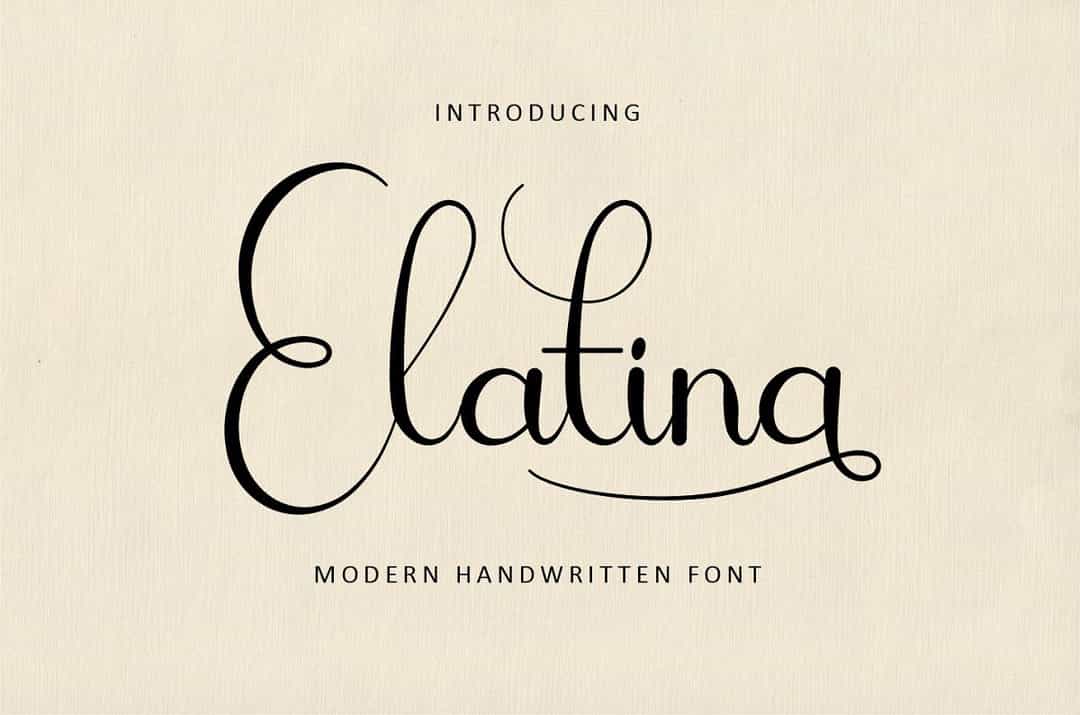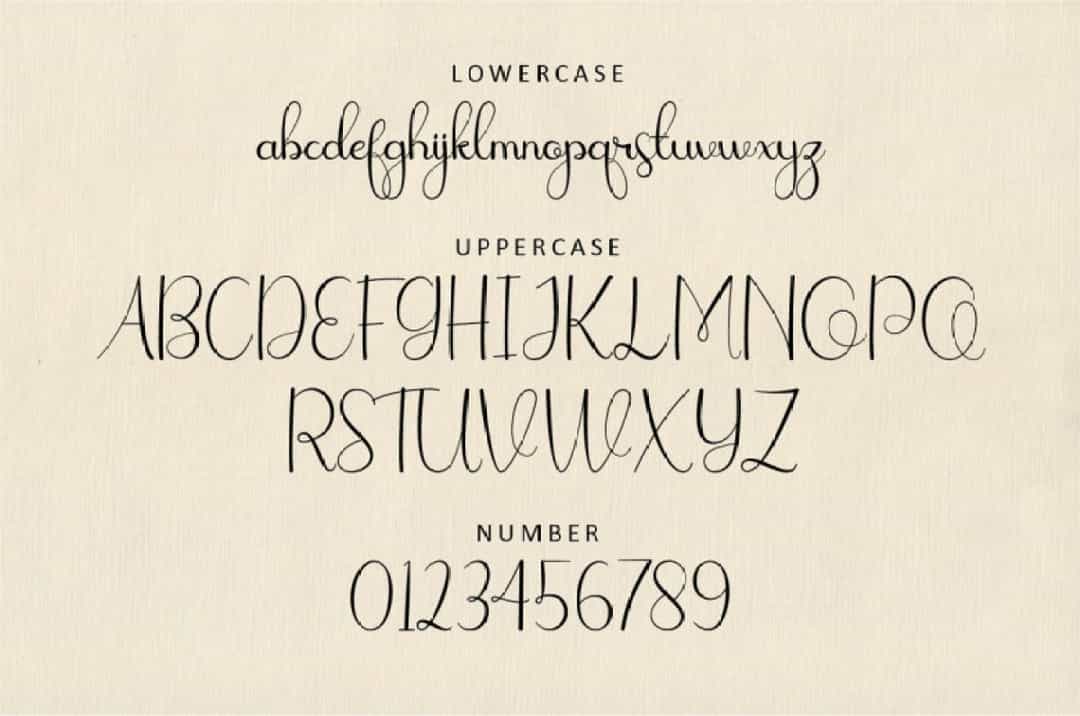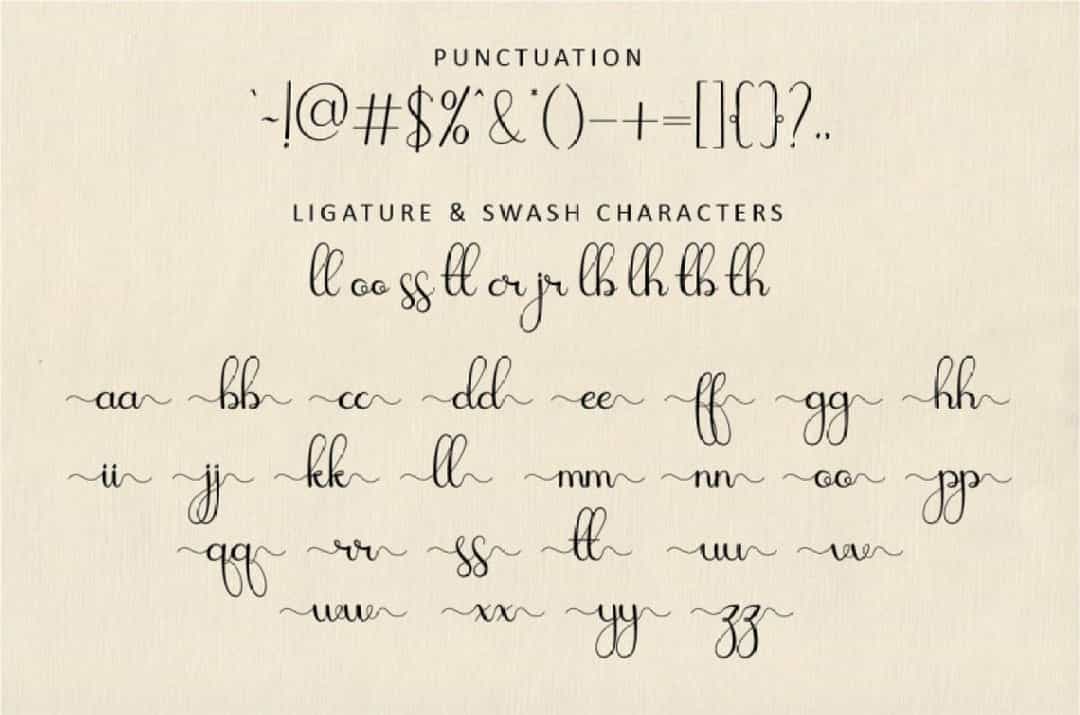
Elatina is an exquisite and elegant script font handwritten. With its distinct and balanced characters, Elatina is truly stunning and will leave an indelible mark in any design project you take on! Be inspired by its amazing versatility to make beautiful designs!